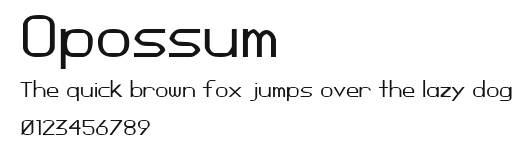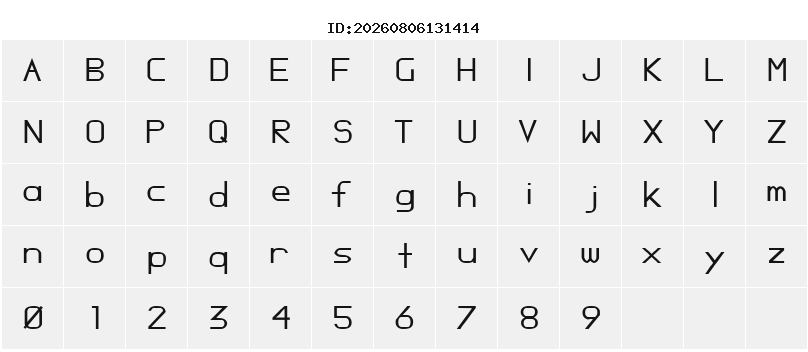
• Font Name: Opossum
About Opossum.ttf
Opossum.ttf is a modern, elegant sans-serif font designed for ultimate readability and visual harmony. Perfect for branding, headlines, web design, and print materials.